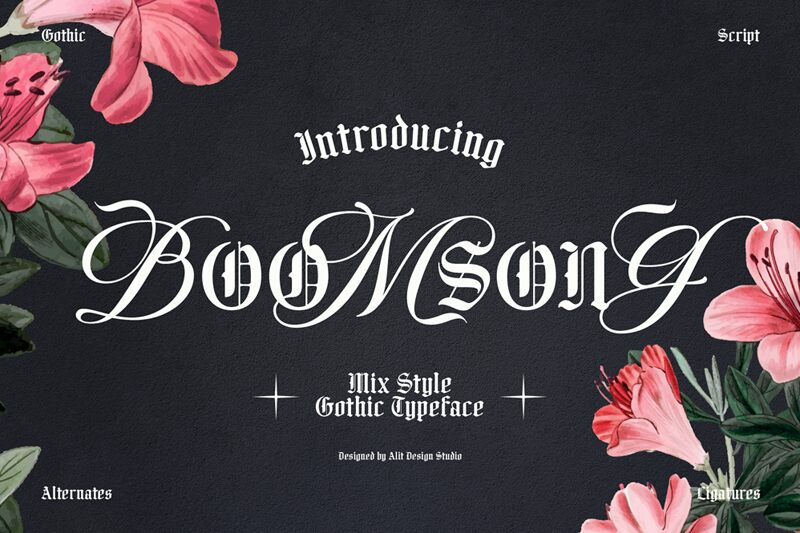
Boomsong, crafted by the talented Alit Design, is a captivating Gothic-inspired font that exudes a modern and sophisticated charm. Its condensed width lends an air of elegance and refinement, while the sharp, angular serifs add a touch of edginess to the overall aesthetic. This font radiates a sense of authority and command, making it an ideal choice for bold, eye-catching headlines, signage, and branding applications.
Boomsong's versatility extends beyond its striking visual appeal. Its condensed form allows for efficient use of space, making it a practical selection for layouts that require a compact yet impactful typographic presence. From sleek editorial designs to powerful corporate identities, this font can seamlessly integrate into a wide range of creative projects, elevating the overall aesthetic and leaving a lasting impression.
Boomsong